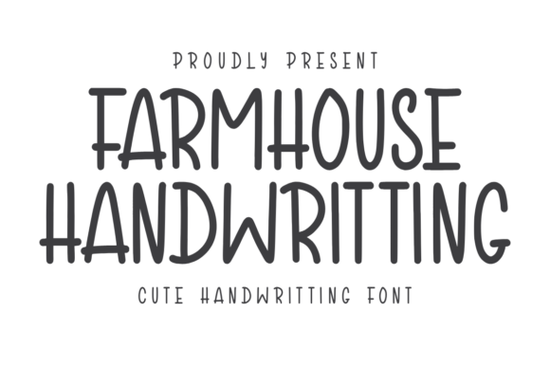
If you’ve been scrolling through script fonts looking for something that feels personal, warm, and just a little bit whimsical, the Farmhouse Handwriting Font might be exactly what your next project needs. It’s got that cozy, handwritten charm the kind you’d find on a chalkboard in a country kitchen or tucked into the corner of a handmade birthday card. Whether you’re designing planner pages, cutting vinyl with your Cricut, or putting together printable quote art, this font adds personality without feeling overdone.
It’s especially great if you’re creating for moms who love to craft, journal, or personalize gifts. The strokes are soft but legible, with just enough bounce to feel playful without sacrificing readability. And because it’s designed with real-life crafting in mind, it scales well for everything from tiny sticker labels to big wall decals.
What kinds of projects work best with this font?
You’ll find Farmhouse Handwriting shines when used in contexts that call for warmth and approachability. Think:
- Planner layouts – Monthly headers, habit trackers, or motivational quotes inside your bullet journal.
- Printable cards – Birthday, thank-you, or holiday greetings that feel like they were written by hand.
- DIY stickers – Perfect for labeling jars, organizing kids’ rooms, or adding flair to water bottles.
- Cricut & Silhouette projects – Works cleanly with cutting machines, even at small sizes.
- Quote graphics – Pair it with simple sans-serifs for contrast, or let it stand alone for a folksy vibe.
If you’ve enjoyed using fonts like Candies Honeymoon for sweet, romantic designs, or Love Doodle for quirky, illustrated phrases, you’ll appreciate how Farmhouse Handwriting slots right in between not too fancy, not too plain, just right for everyday creativity.
How does it compare to other script fonts for crafters?
Not all handwriting fonts are created equal. Some are too stiff, others too messy. Farmhouse Handwriting strikes a balance it’s casual but intentional, with enough variation in stroke weight to feel organic, but consistent enough to remain professional-looking when printed or cut.
For example, if you’ve tried Crafto and loved its bold, marker-style look, you might use Farmhouse as a softer companion maybe for subheadings, captions, or layered text effects. It also pairs surprisingly well with clean, modern typefaces if you’re building branding kits or printable templates for Etsy shops.
One thing users consistently mention: it’s easy to read even at smaller point sizes. That’s huge if you’re making planner inserts or product labels where space is tight.
Any tips for getting the most out of this font?
A few quick ideas to help your designs feel more polished:
- Pair it with a simple sans-serif. Try pairing Farmhouse with fonts like Montserrat or Lato for clean contrast.
- Add subtle texture. A light paper grain or watercolor wash underneath can enhance its handmade feel.
- Use sparingly for impact. It’s charming, but too much can feel cluttered. Let it headline, then switch to something simpler for body text.
- Adjust letter spacing slightly. Sometimes opening up the tracking by 10–20 points helps it breathe, especially in longer phrases.
If you’re new to script fonts, don’t be afraid to experiment. Try layering it over photos, using it in SVG files for cutting machines, or converting text to outlines to tweak individual letters. The more you play, the more natural it’ll feel in your workflow.